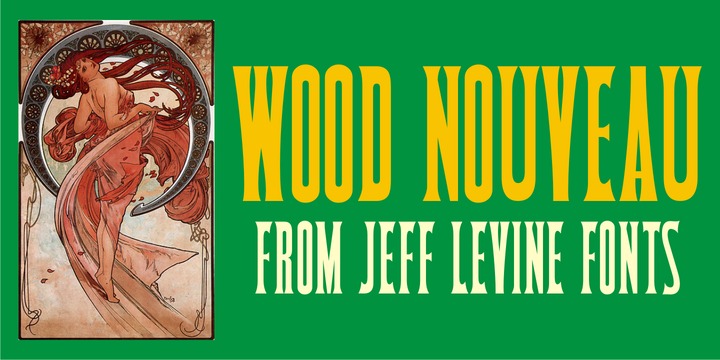
Wood Nouveau JNL
by Jeff Levine
The Wood Nouveau JNL Font Family was designed by Jeff Levine and published by Jeff Levine. Wood Nouveau JNL contains 1 styles. More about this family
The hand cut wood type which was the inspiration for Wood Nouveau JNL conjures up images of the artistic period between the Victorian Era and 1920s Moderne, as well as the hippie counterculture active in the later part of the 20th Century. During the late 1960s and early 1970s, rock posters, fliers, store signs and other printed ephemera of "the love generation" borrowed heavily from the Art Noveau style in both art and typography. An Alphonse Mucha-inspired flower girl could adorn a concert poster that also combined both vintage wood type and hand-lettered elements. Although this particular type design might well have preceded the actual start of the Nouveau period, the softer, rounder lines of each character lent themselves well to this emerging style.
About Jeff Levine
Jeff Levine has been in love with lettering since the third grade, when a schoolmate brought a lettering stencil into class. He has worked in both the graphics and music industries, and began his work with digital type via his own site, which hosted over one hundred free dingbat fonts until its retirement in 2009. Although these fonts were experimental at best, Jeff received "thank you" letters from points all over the world for making his designs available. Encouraged by these responses, Jeff decided to set his sights on creating interesting and commercially viable type fonts.